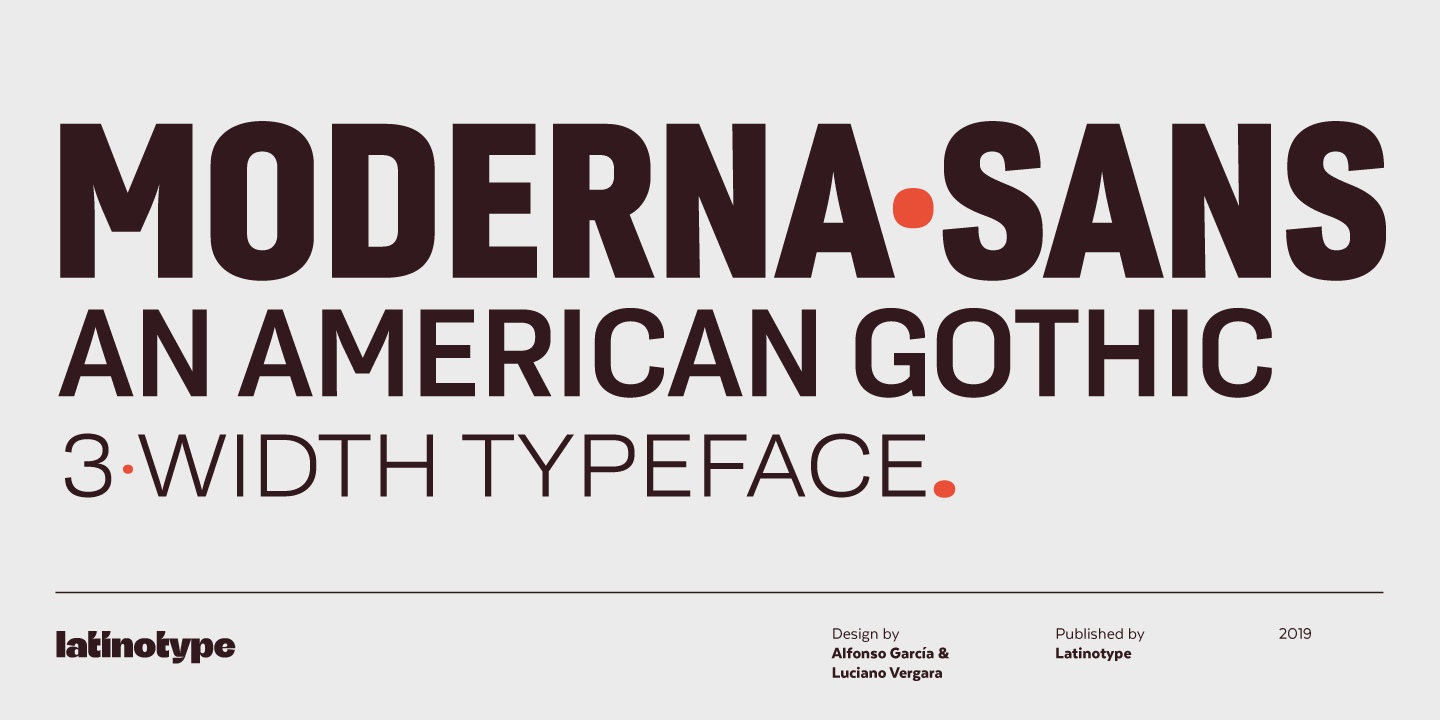
Moderna Sans Font
Moderna Sans Font is perfectly suited for corporate branding, modern web design, mobile application interfaces, minimalist logos, tech startup branding, professional presentations, annual reports, contemporary advertising campaigns, and clean editorial layouts.
What makes Moderna Sans Font so exciting is its perfect balance of contemporary sophistication and timeless functionality that adapts seamlessly to any modern design challenge. This exceptional sans-serif typeface embodies the principles of clean, efficient design while maintaining distinctive character that prevents it from feeling generic or ordinary. The font's carefully refined letterforms feature subtle geometric influences combined with humanist touches that create warmth and approachability without sacrificing professionalism. Moderna Sans Font stands out through its versatility and technical excellence, making it ideal for brands and designers who need a reliable, elegant typeface that performs consistently across all media while conveying innovation, trustworthiness, and forward-thinking vision.
The Moderna Sans Font family includes an extensive range of weights from Thin to Black, each available in both regular and italic styles. This comprehensive family also features condensed and extended variations, providing designers with maximum flexibility for creating sophisticated typographic systems and maintaining visual consistency across complex brand applications.
The technical superiority of Moderna Sans Font includes an extensive character set supporting multiple languages, advanced OpenType features, and carefully optimized spacing for both screen and print applications. The font maintains exceptional legibility at all sizes, from large display headlines to small body text, making it perfect for complex information design and user interface applications where clarity is paramount.
Whether you're developing corporate identity systems, designing digital interfaces, creating marketing materials, or building comprehensive brand guidelines, Moderna Sans Font provides the professional quality, versatility, and contemporary aesthetic that ensures your designs remain relevant and effective in today's fast-evolving design landscape.